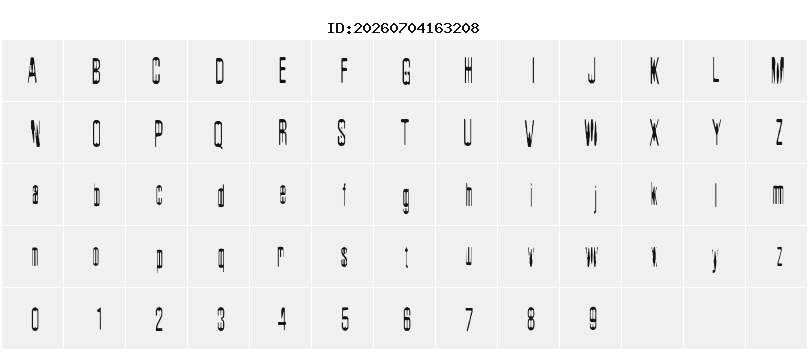
Dublux Raw Preview
• Font Name: Dublux Raw
• Full Font Name: Dublux-Raw
About Dublux Raw.otf
Dublux Raw.otf is a modern, elegant sans-serif font designed for ultimate readability and visual harmony. Perfect for branding, headlines, web design, and print materials.